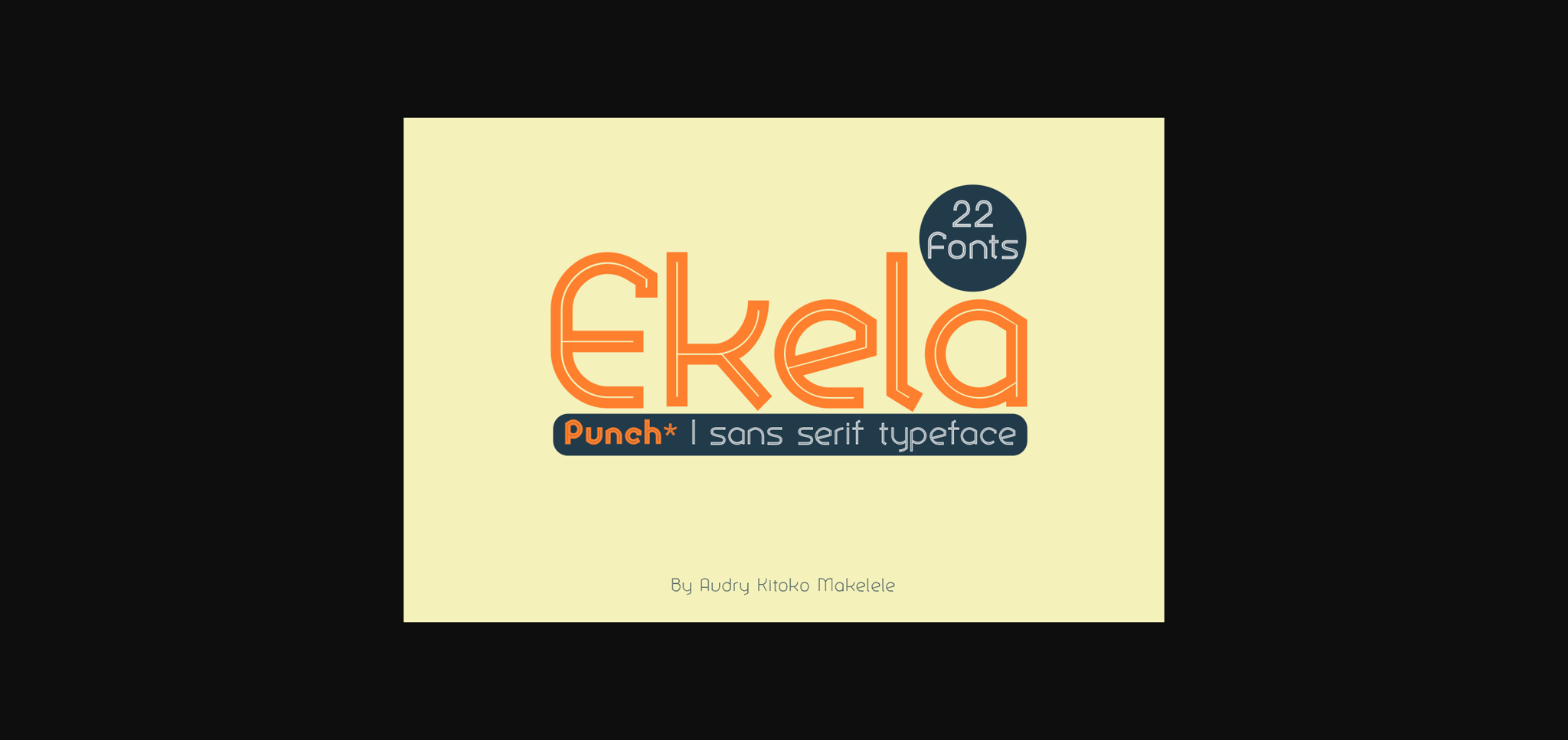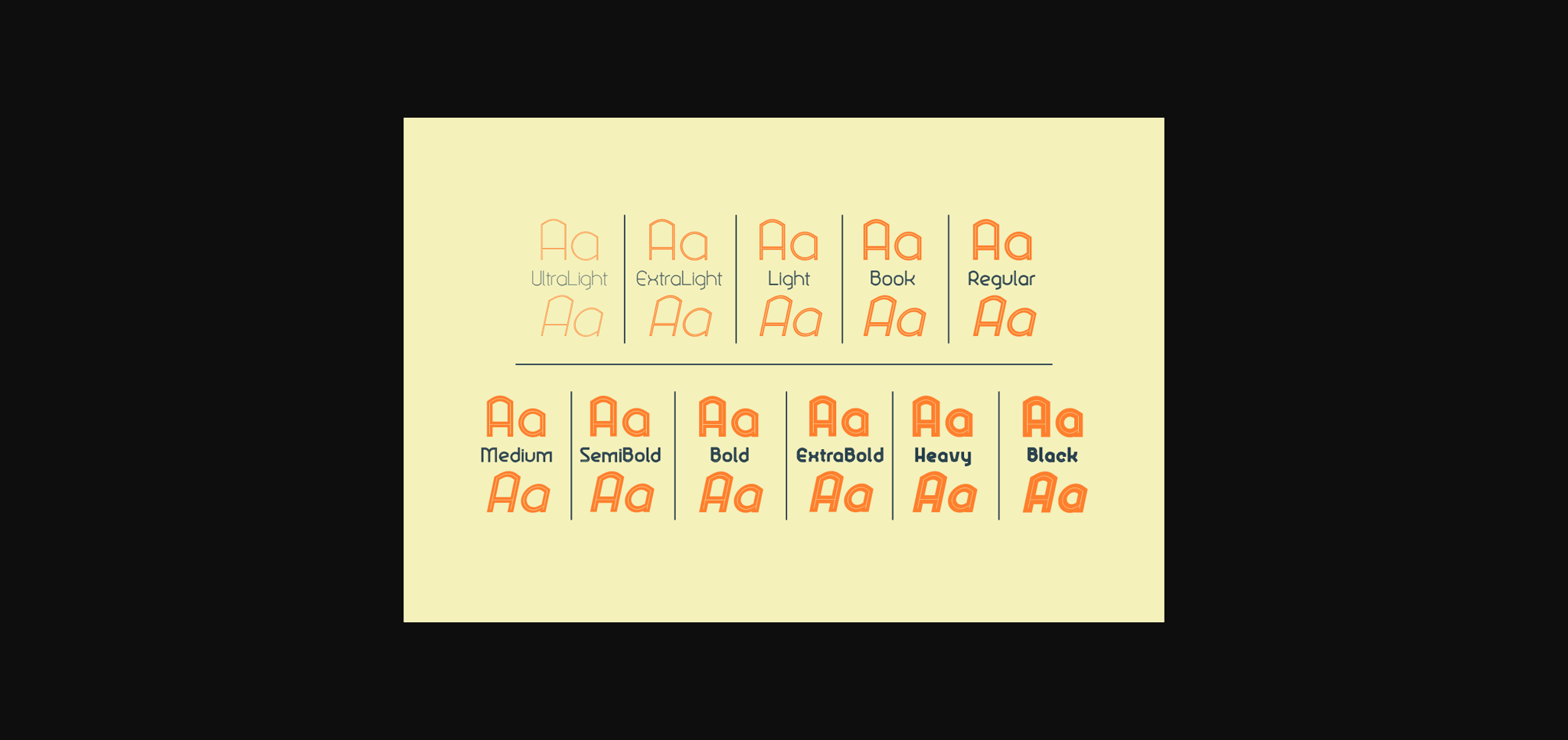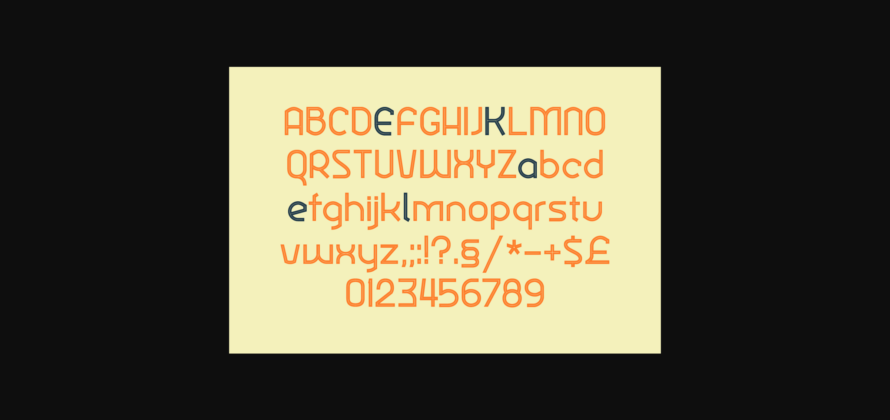
About Ekela Punch Font
Ekela Punch is a unique and neat sans serif font. It can easily be matched to an incredibly large set of projects, so add it to your creative ideas and notice how it makes them stand out!